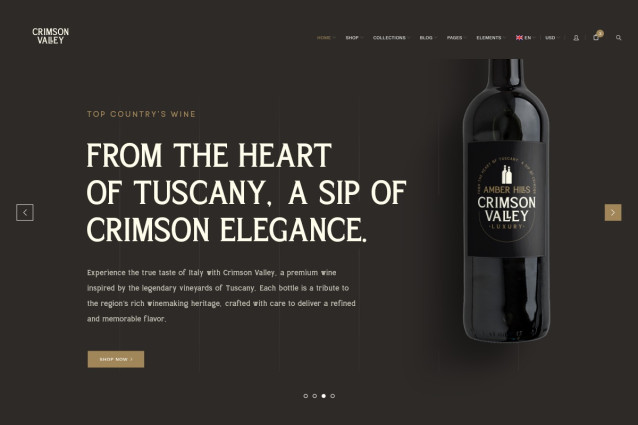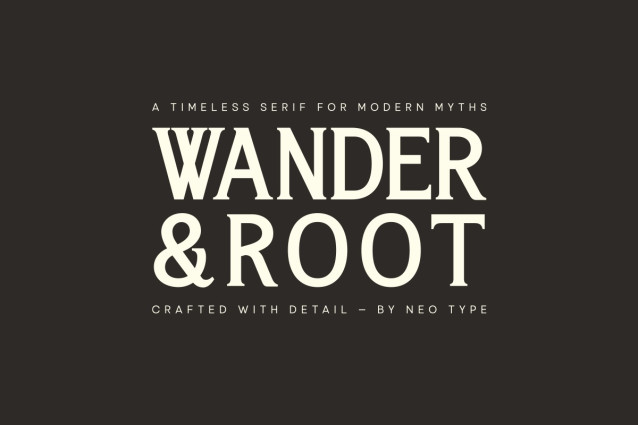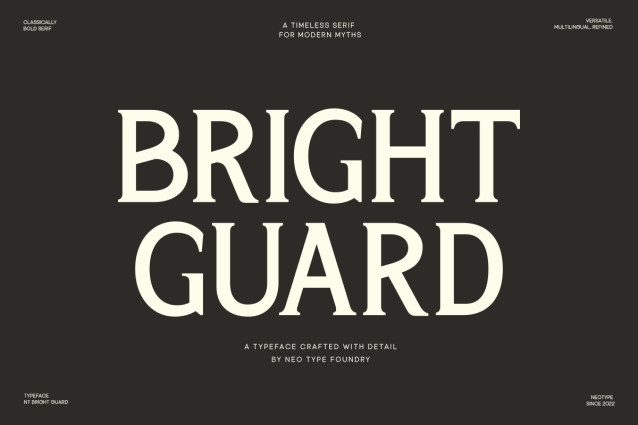
NT Bright Guard Font
NT Bright Guard Font is a bold and elegant serif display font crafted to command attention. Inspired by classical proportions and modern strength, it blends refined curves with powerful letterforms — perfect for designs that need both grace and authority.
With striking ligatures, sharp serifs, and versatile alternates, Bright Guard is ideal for luxury branding, editorial headlines, logos, and packaging. Each character is thoughtfully designed to bring a sense of legacy and leadership into your typography.